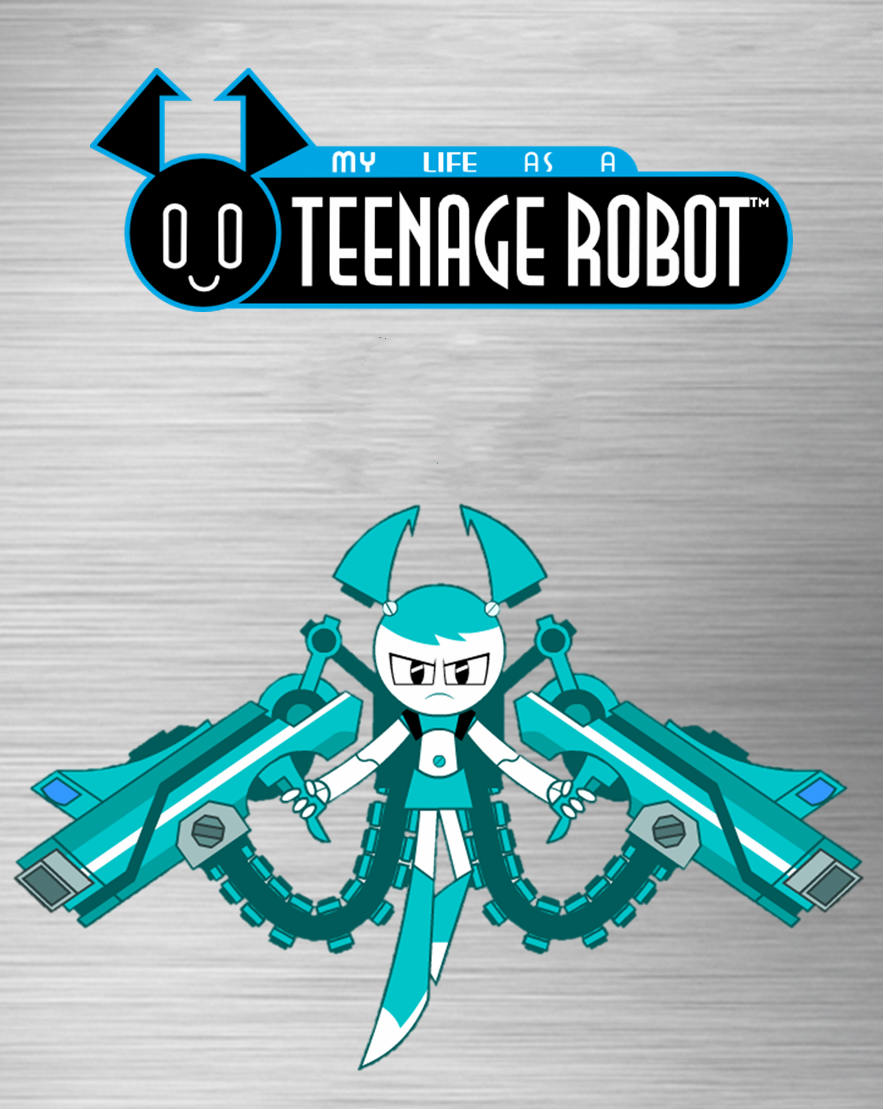
Teenage Robot Font
AnimationMy Life as a Teenage Robot is a superhero comedy television series created by Rob Renzetti for Nickelodeon. It follows the adventures of a teenage robot named XJ-9 as she tries to balance her duties as a protector of the Earth with her desire to have a normal life as a teenager.
The "Teenage Robot" part of the tv show logo features an Art Deco typeface called ITC Anna designed by Daniel Pelavin in 1990. Anna typeface was originally created by the designer to be used for his wedding and daughter's (Anna) birth announcements.